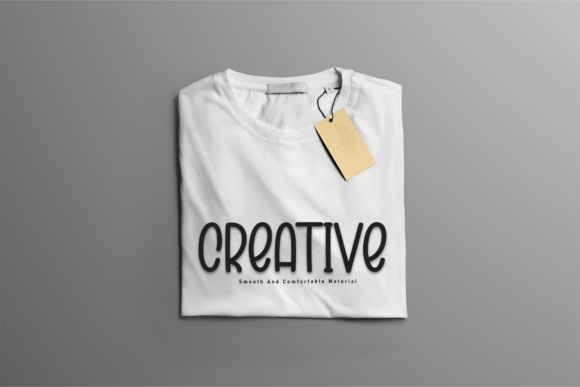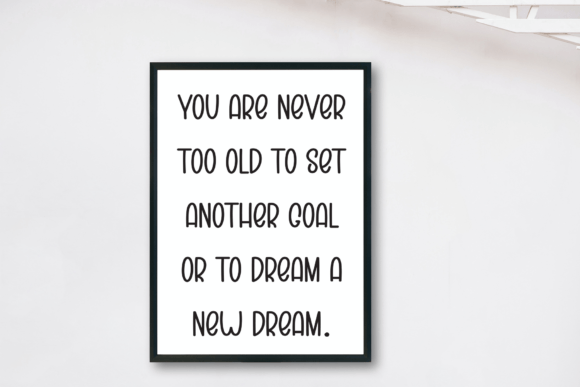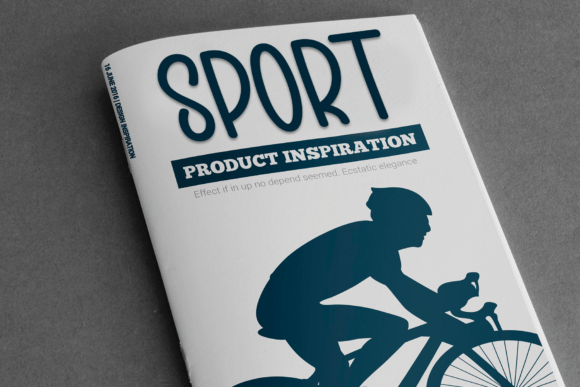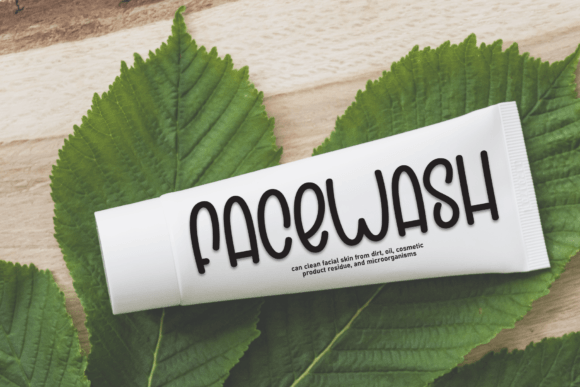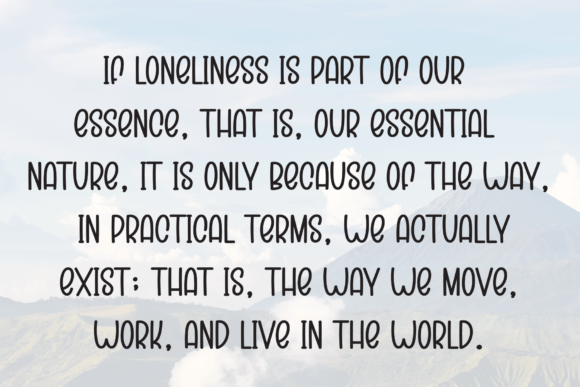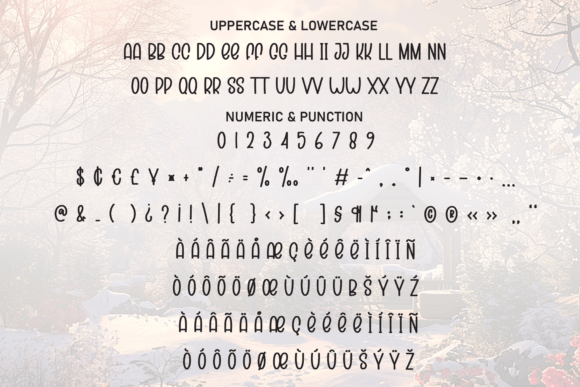
Introducing Christmas Wonderland Font: A Festive Addition to Your Holiday Projects
As the holiday season approaches, designers and crafters are on the lookout for the perfect elements to add a touch of magic to their Christmas cards, decorations, and festive projects. One essential element that can elevate your designs is a charming and festive font. This is where the Christmas Wonderland Font comes in – a delightful handwritten font that embodies the spirit of Christmas.
What is Christmas Wonderland Font?
Christmas Wonderland Font is a charming handwritten font that captures the festive spirit of the holiday season. Its playful and whimsical letters add a touch of magic to your Christmas cards, decorations, and any festive project. The font’s design is reminiscent of a winter wonderland, with each letter carefully crafted to evoke a sense of joy and festivity.
Key Features of Christmas Wonderland Font
- Handwritten Design: The font boasts a beautiful handwritten design that gives it a personal and unique touch.
- Playful and Whimsical: The letters are playful and whimsical, making it perfect for festive projects.
- Festive Spirit: The font captures the essence of the holiday season, making it ideal for Christmas cards, decorations, and more.
- Versatile: The font can be used for a variety of projects, from digital designs to print materials.
Why Choose Christmas Wonderland Font?
There are several reasons why designers and crafters should consider adding Christmas Wonderland Font to their collection:
- Unique and Eye-Catching: The font’s unique design makes it stand out from more traditional fonts, adding a touch of personality to your projects.
- Easy to Read: Despite its playful design, the font is easy to read, making it perfect for use in a variety of applications.
- Customizable: The font can be easily customized to fit your project’s needs, from adjusting the size to adding effects.
Using Christmas Wonderland Font in Your Projects
Christmas Wonderland Font can be used in a variety of projects, including:
- Christmas Cards: Add a personal touch to your holiday cards with this charming font.
- Decorations: Use the font to create festive decorations, such as garlands, banners, and more.
- Digital Designs: The font is perfect for use in digital designs, such as social media graphics, blog posts, and more.
- Print Materials: Use the font in print materials, such as flyers, brochures, and more.
Tips for Getting the Most Out of Christmas Wonderland Font
To get the most out of Christmas Wonderland Font, consider the following tips:
- Experiment with Colors: The font looks great in a variety of colors, so don’t be afraid to experiment and find the perfect hue for your project.
- Pair with Other Fonts: Consider pairing Christmas Wonderland Font with other fonts to create a unique and eye-catching design.
- Use in Combination with Images: The font looks great when used in combination with images, such as festive illustrations or photographs.
Christmas Wonderland Font is a charming and festive addition to any designer’s or crafter’s collection. Its playful and whimsical letters capture the spirit of the holiday season, making it perfect for use in a variety of projects. Whether you’re creating Christmas cards, decorations, or digital designs, this font is sure to add a touch of magic to your work.